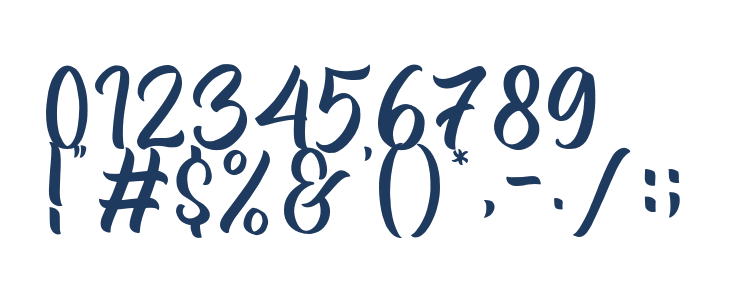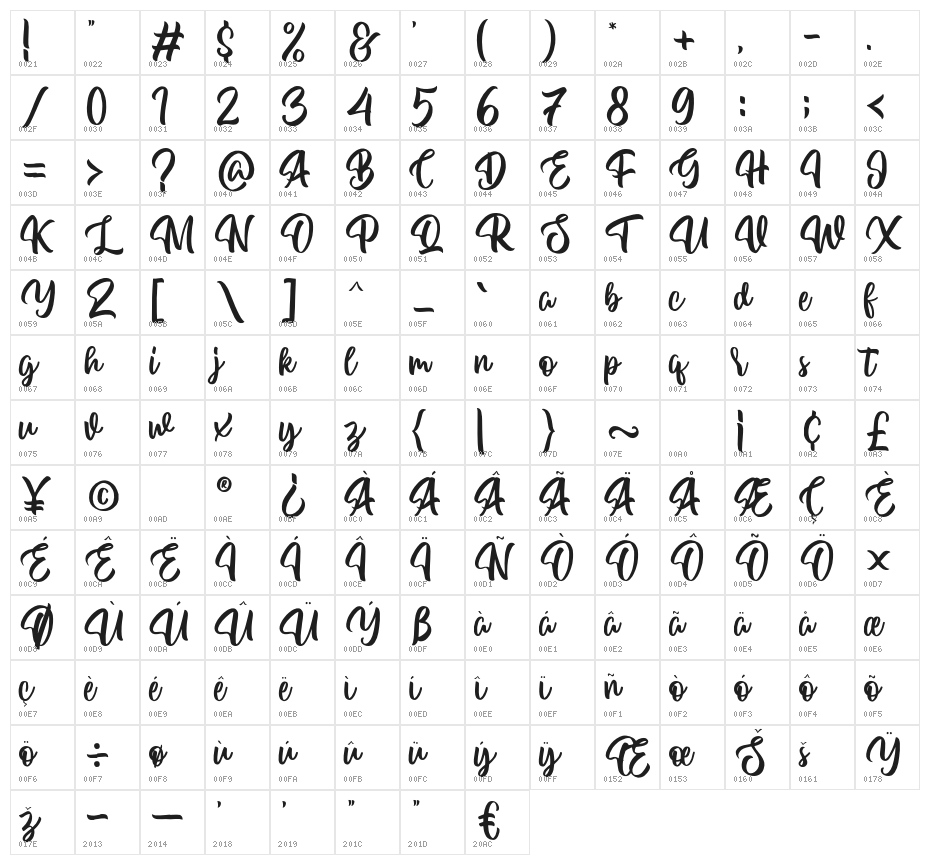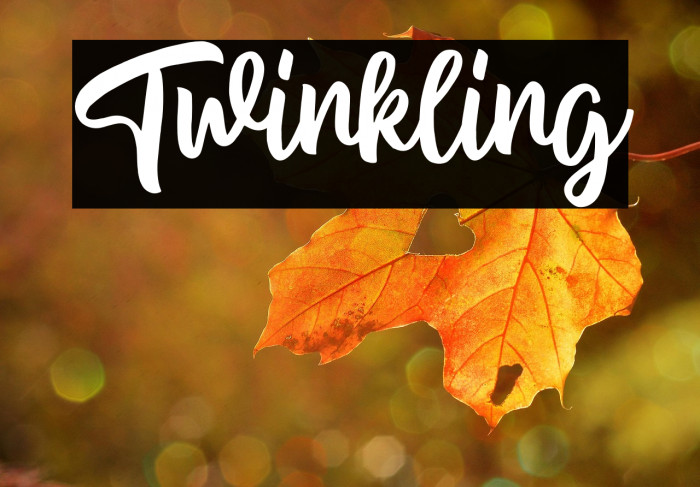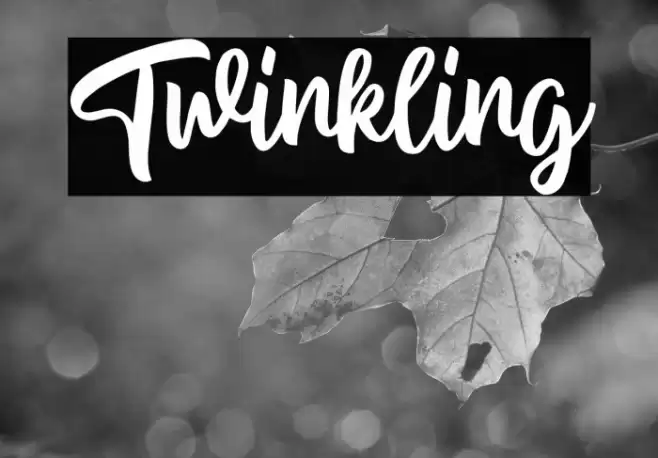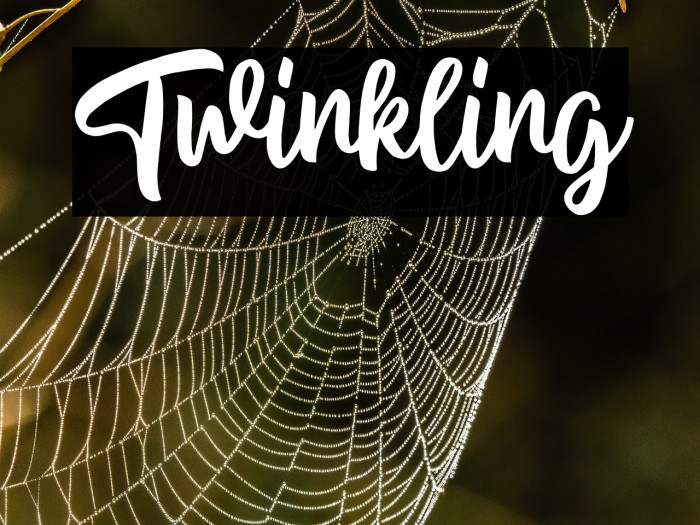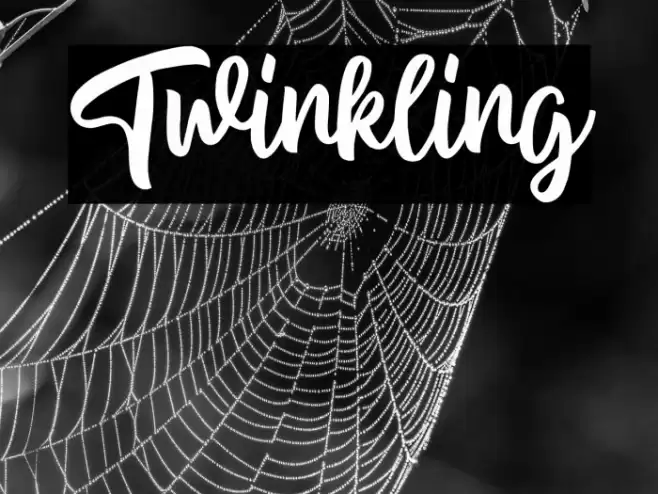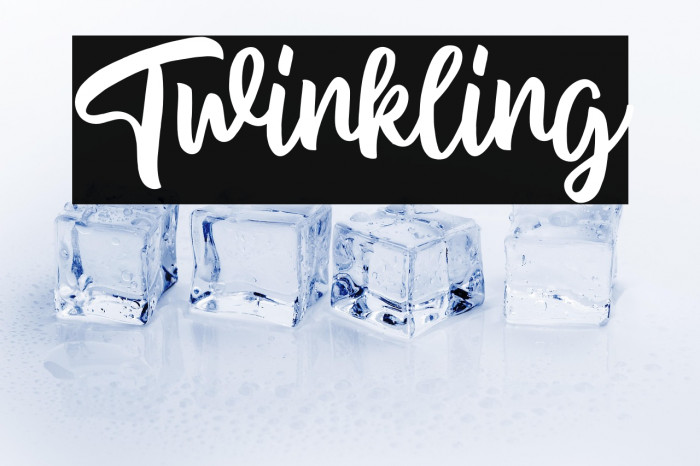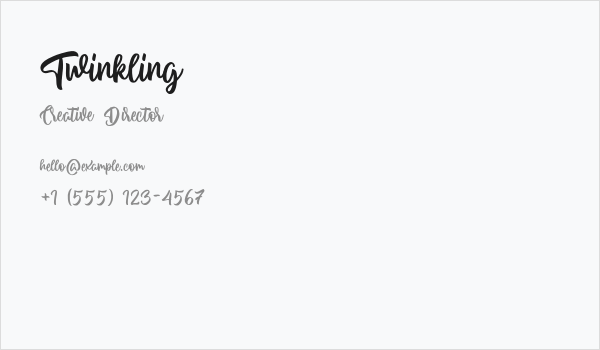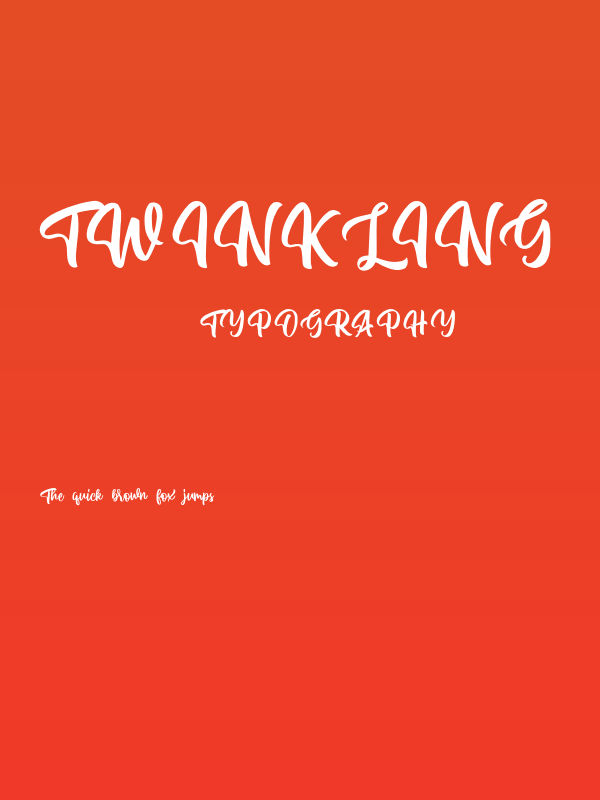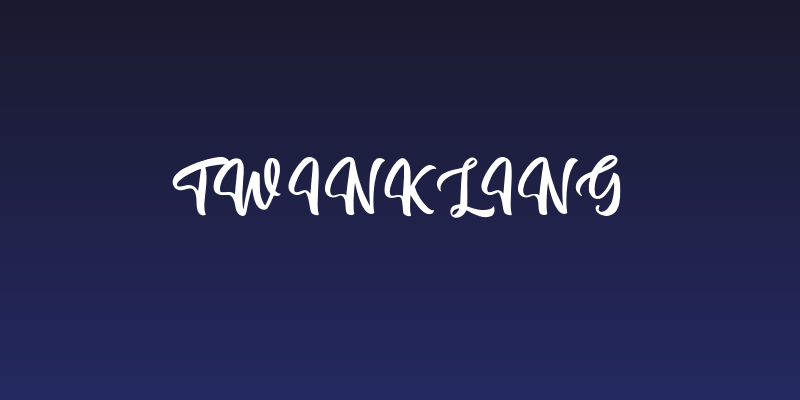
Twinkling Font
Twinkling Description
This font features a playful and energetic script style, characterized by its flowing, cursive letters that convey a sense of movement and liveliness. The strokes are bold and confident, with a slight slant that adds to its dynamic appearance. The uppercase letters are elegantly looped, while the lowercase letters maintain a consistent rhythm, enhancing readability despite their decorative nature. The numbers and special characters follow the same whimsical style, making them suitable for creative and informal designs. The overall impression is one of warmth and friendliness, making it ideal for projects that require a personal touch.
| Proposed Projects | Ideal for greeting cards, invitations, branding, and social media graphics. |